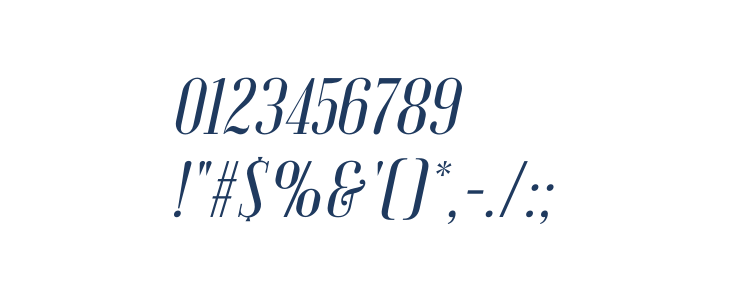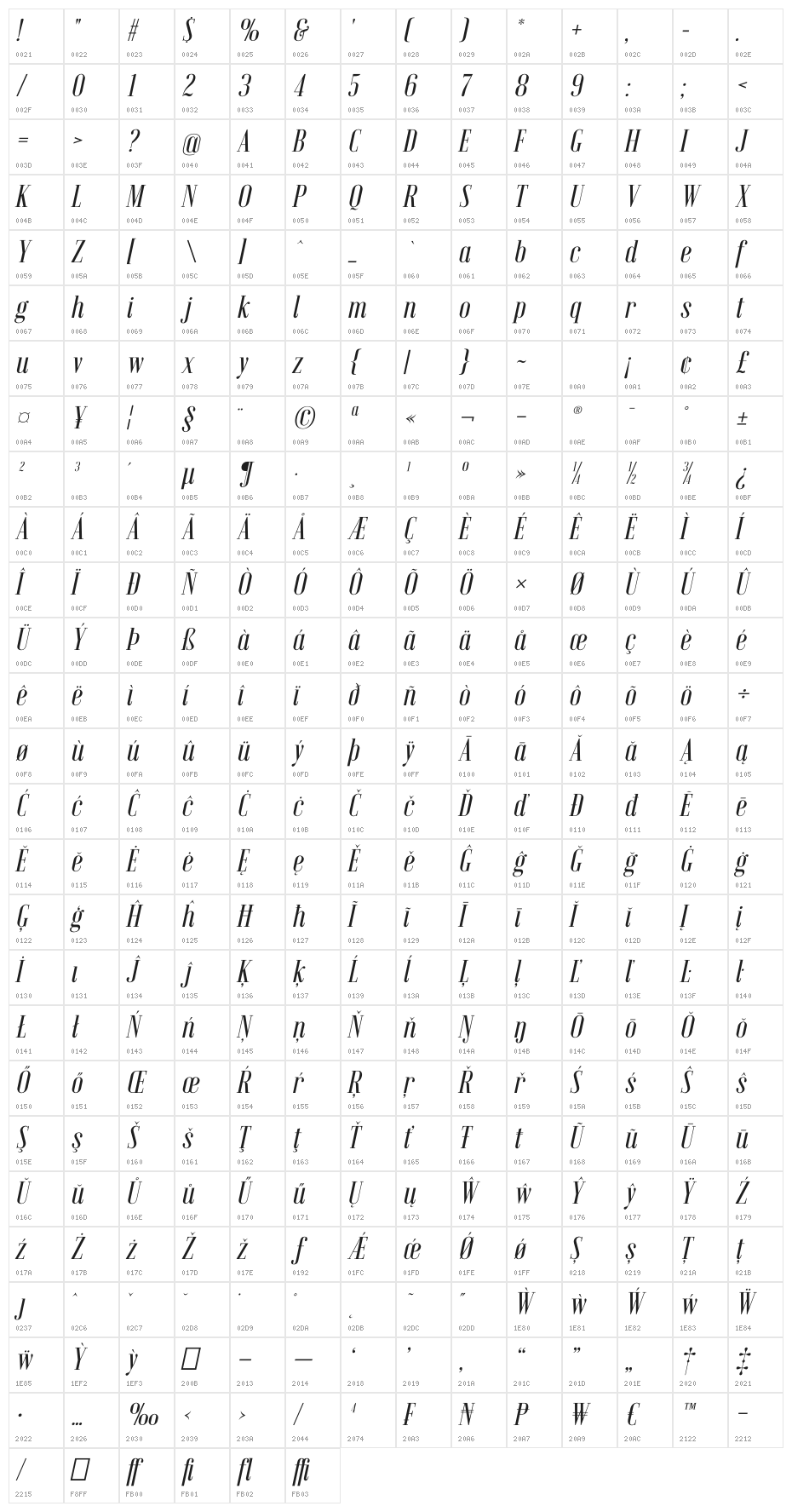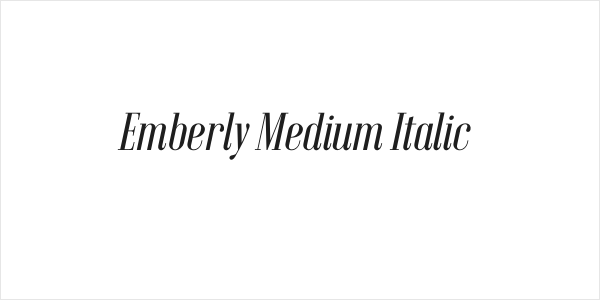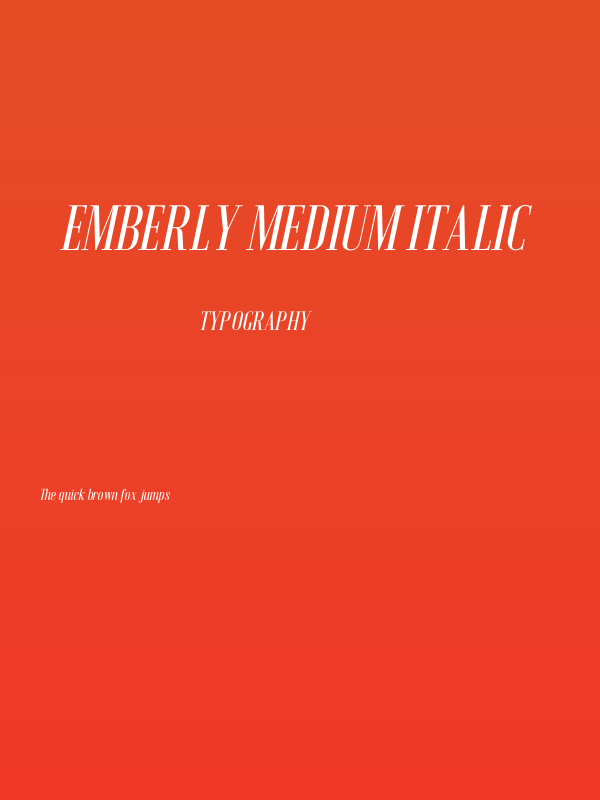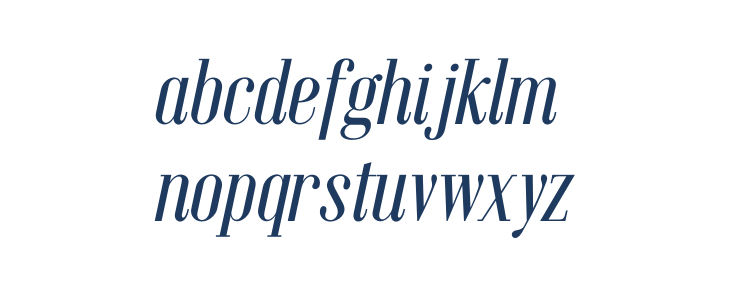
Emberly Medium Italic Font
Emberly Medium Italic Description
This font exhibits a sophisticated and elegant style with a pronounced italic slant, giving it a dynamic and fluid appearance. The characters are well-proportioned with a medium weight, providing a balanced presence on the page. The serifs are sharp and distinct, adding a touch of classic refinement. The overall design is sleek, with a moderate contrast between thick and thin strokes, enhancing readability while maintaining an artistic flair. The spacing between characters is normal, ensuring clarity and legibility across various sizes. This font is ideal for projects that require a touch of elegance and sophistication.
| Use Case | Headlines, Logos, Editorial design |
| Proposed Projects | Ideal for wedding invitations, luxury branding, editorial design, and elegant packaging. |